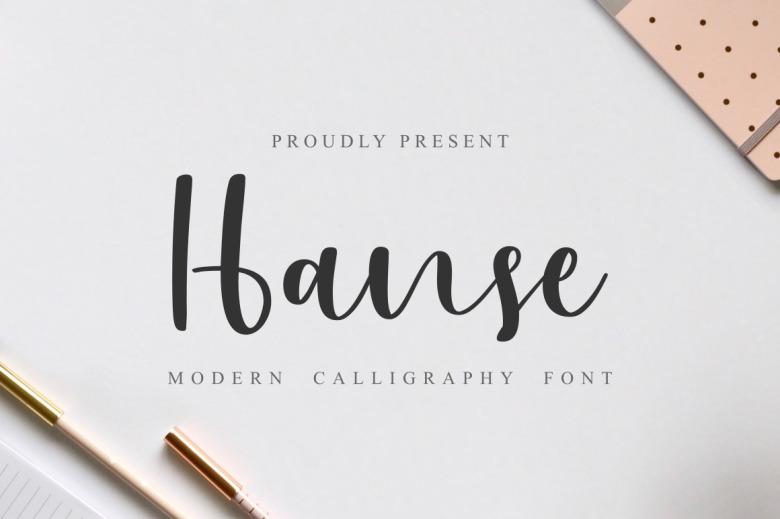
Hanse Font
Here is Hanse Handwritten Calligraphy Script Font. This obviously lives up to its name with a sweet and lively style that simply works in bringing your designs to life. PUA encoded This font is PUA encoded which means you can access all of the glyphs and swashes with ease!
Hanse Handwritten Script Font